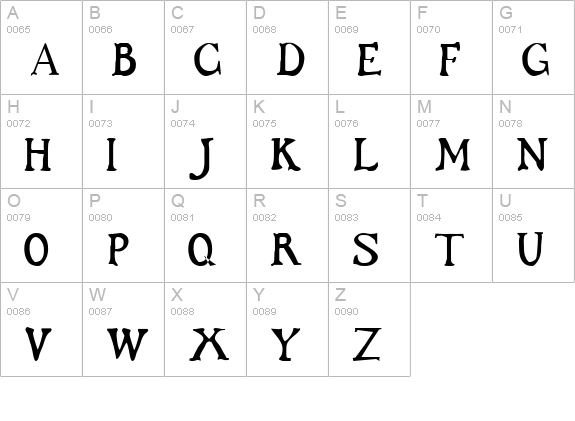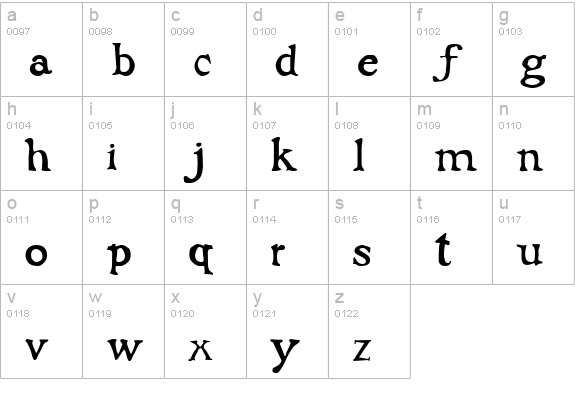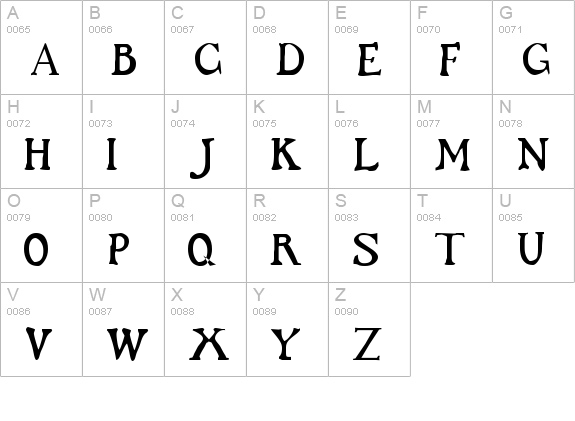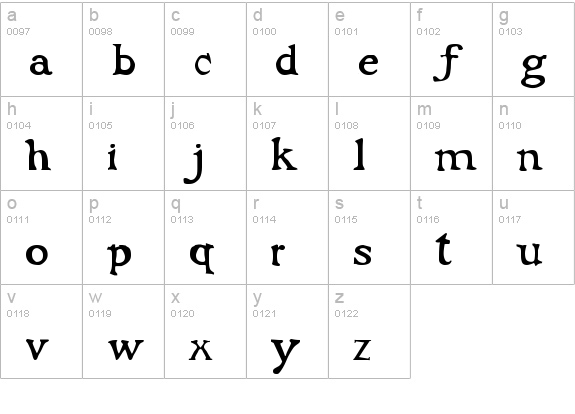
Dark Ages Regular is the standard, neutral variant in the Dark typeface family \xE2\x80\x94 well suited to general body text, paragraphs, and standard typographic work.
Dark Ages Regular font is a striking and versatile typeface that captures the essence of ancient times with its bold and dramatic design. This font exudes a sense of mystery and intrigue, making it perfect for projects that require a touch of historical flair. Its intricate detailing and old-world charm make it a standout choice for headlines, posters, and branding materials. What sets Dark Ages Regular font apart is not only its captivating appearance but also the fact that it is available for free download. You can easily access this stunning font at FontsMarket.com, where you can unleash your creativity and bring your design projects to life with this unique and eye-catching typeface. Let Dark Ages Regular font transport your audience to another era and make a lasting impression with its timeless appeal.